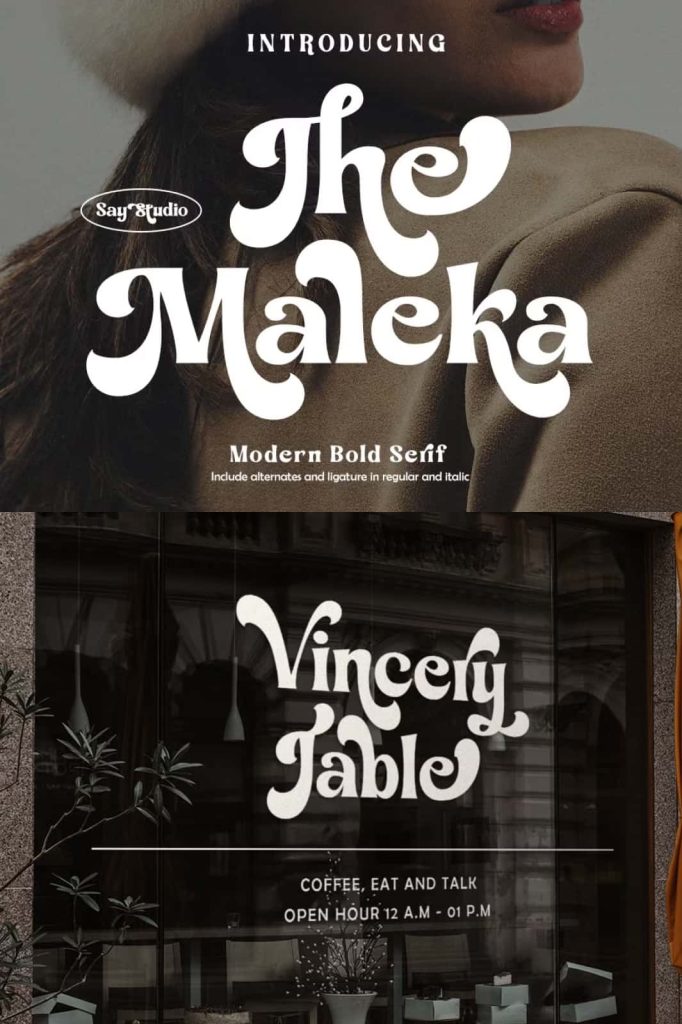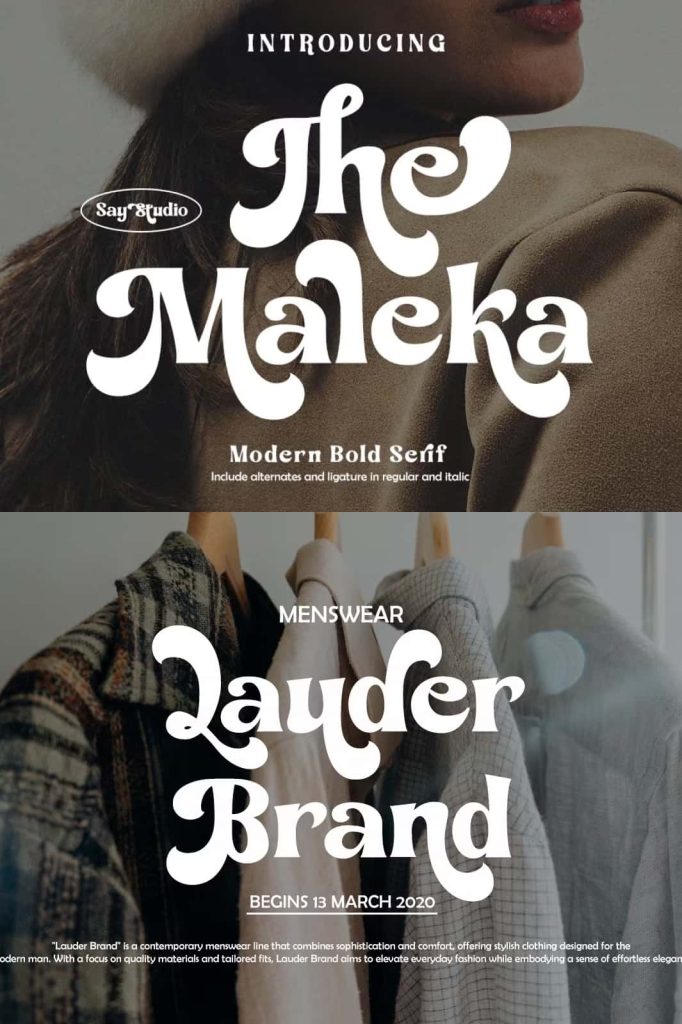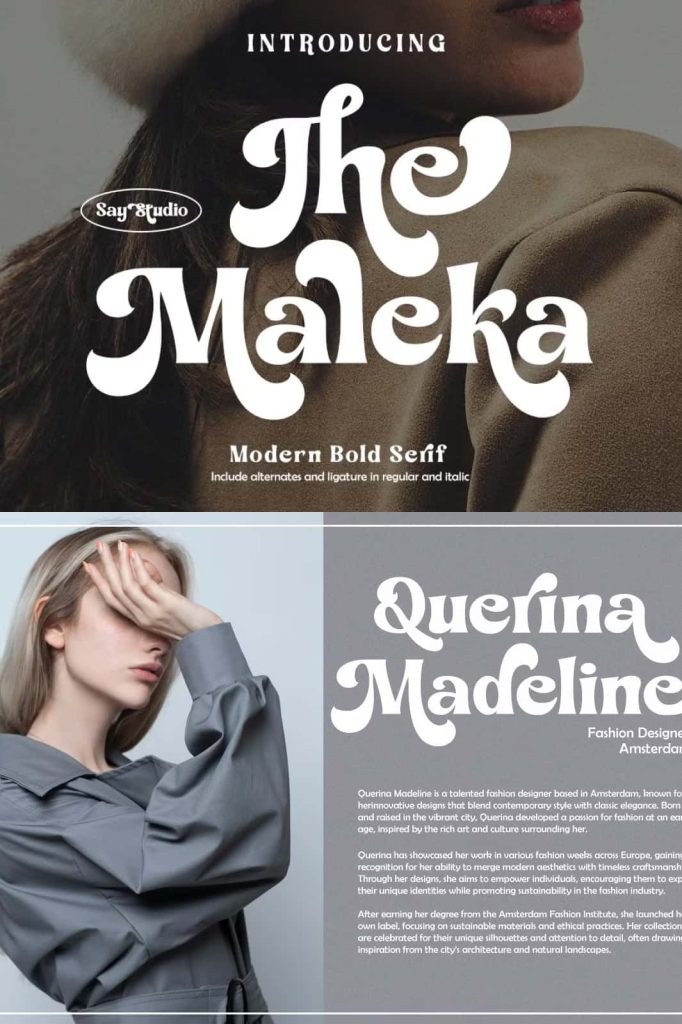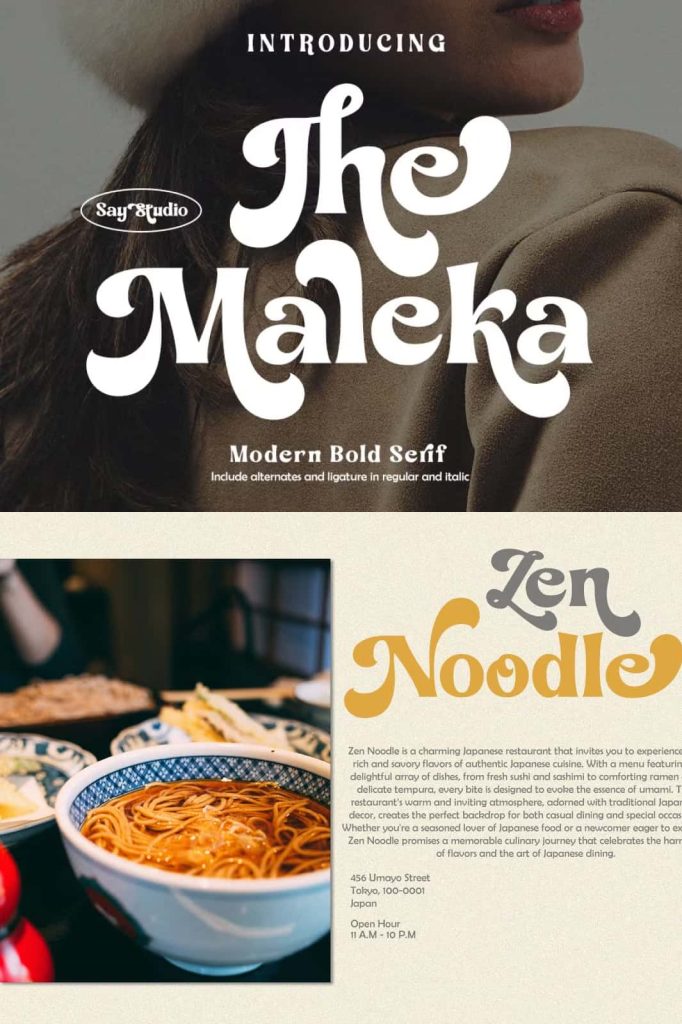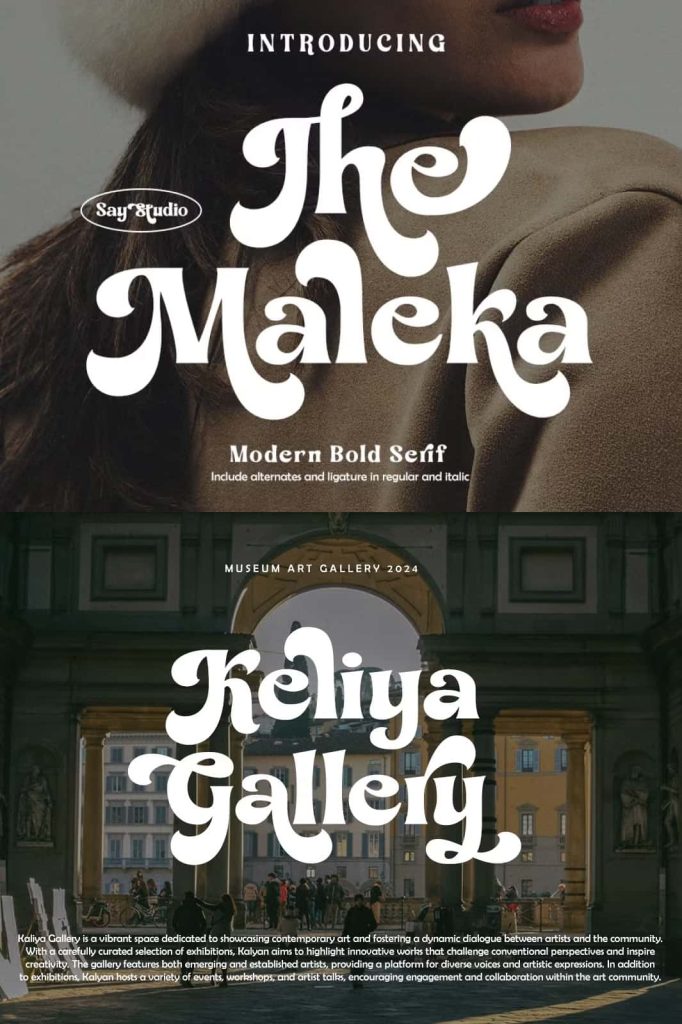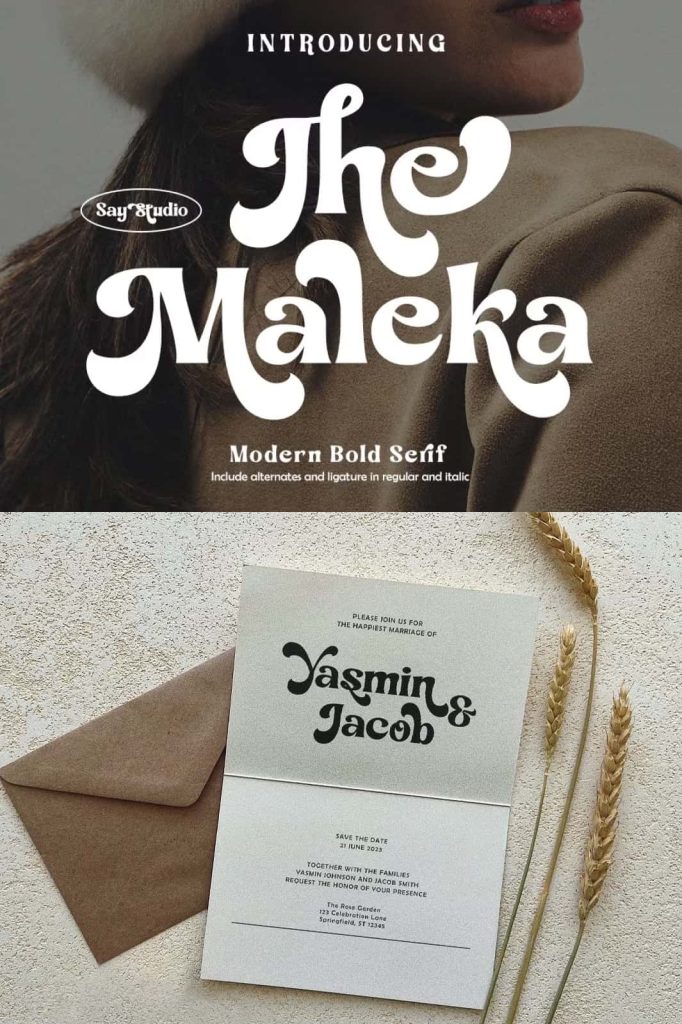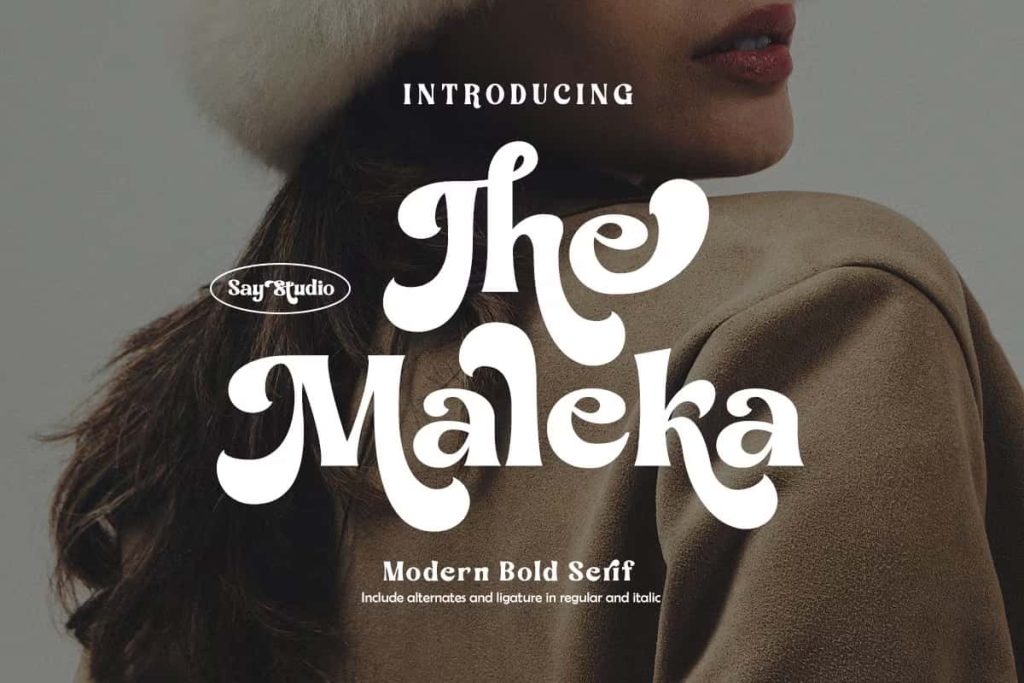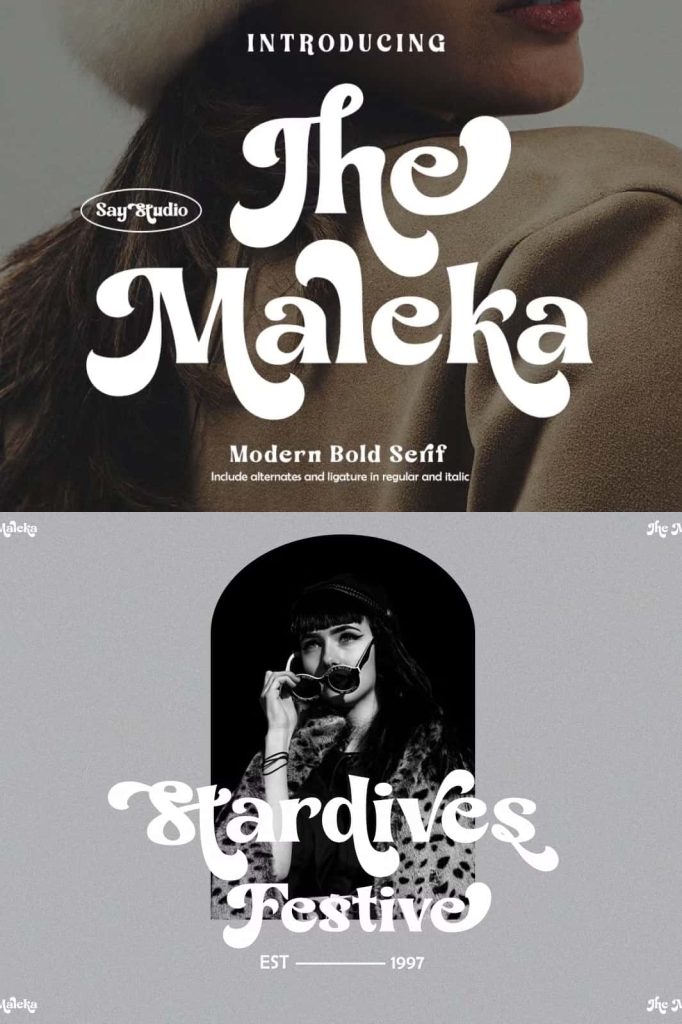
Introducing the new The Maleka! This bold and classy serif typeface beautifully balances modern and nostalgic aesthetics. Pre-matched and ready to enhance your next design, The Maleka adds a touch of elegance, style, and chic modernity, featuring a unique blend of contemporary and retro flair.